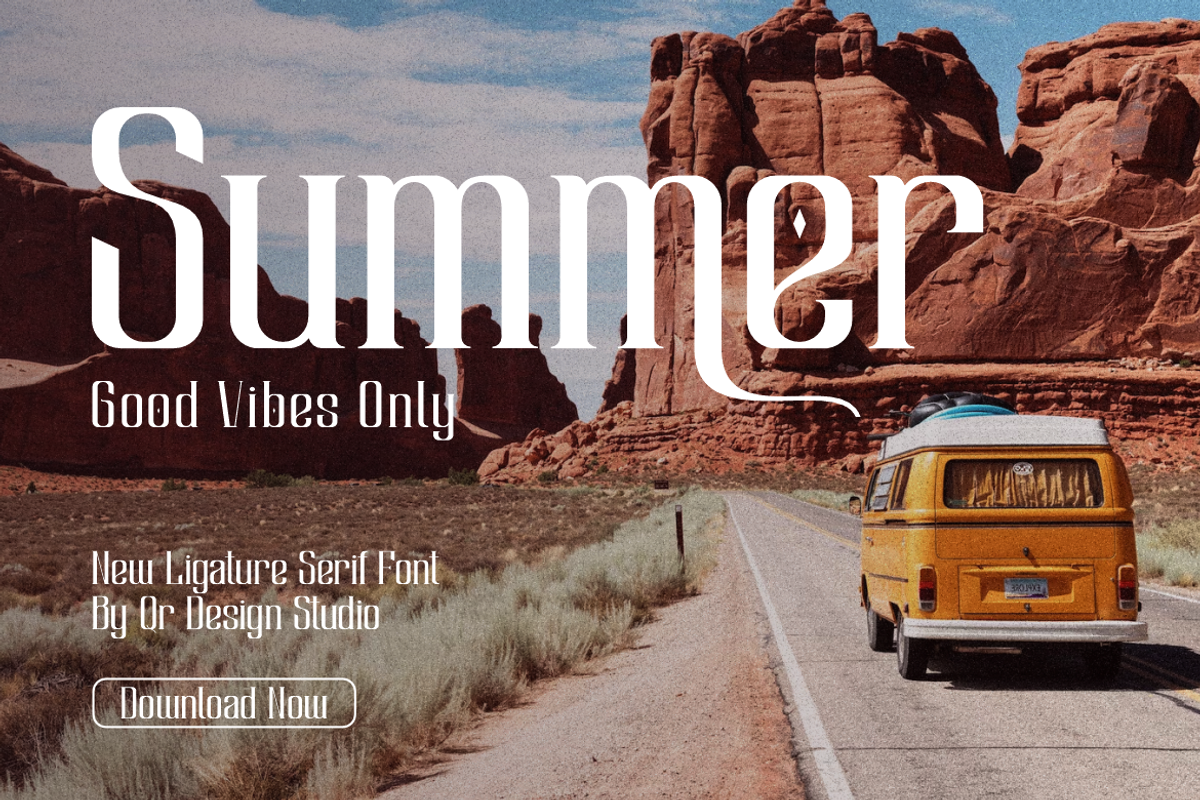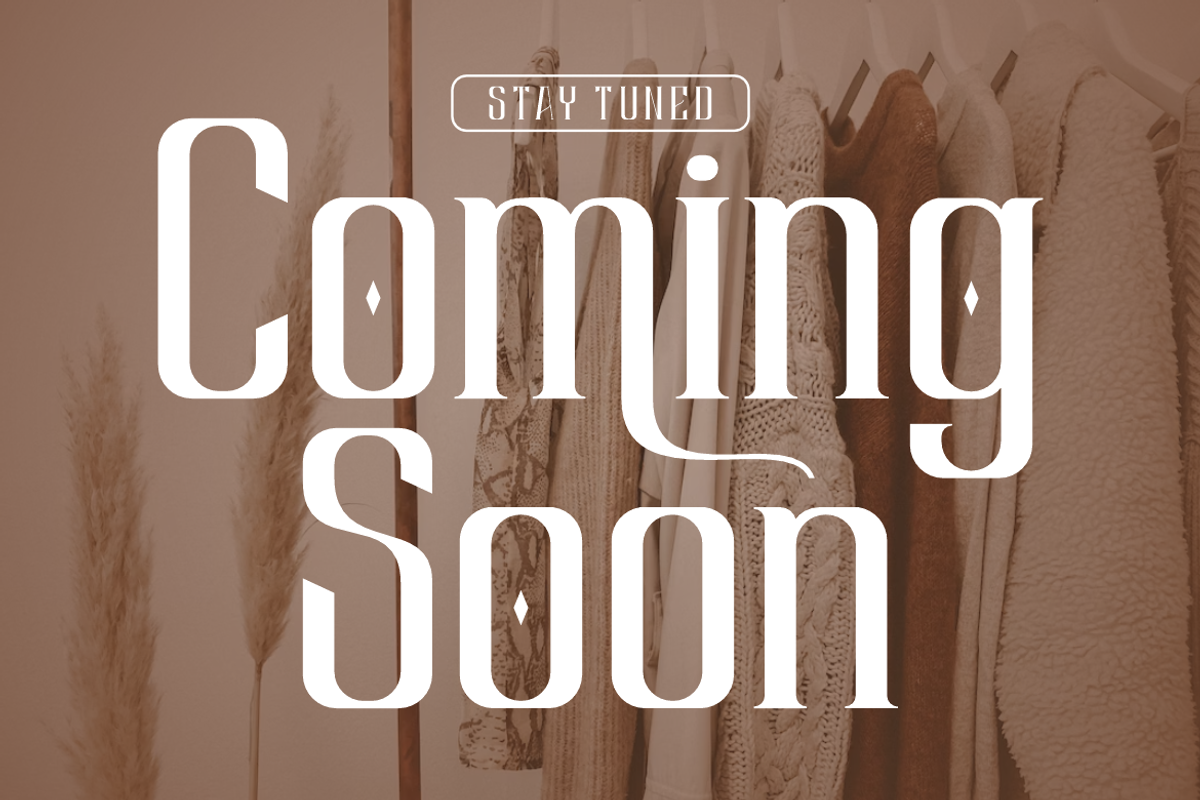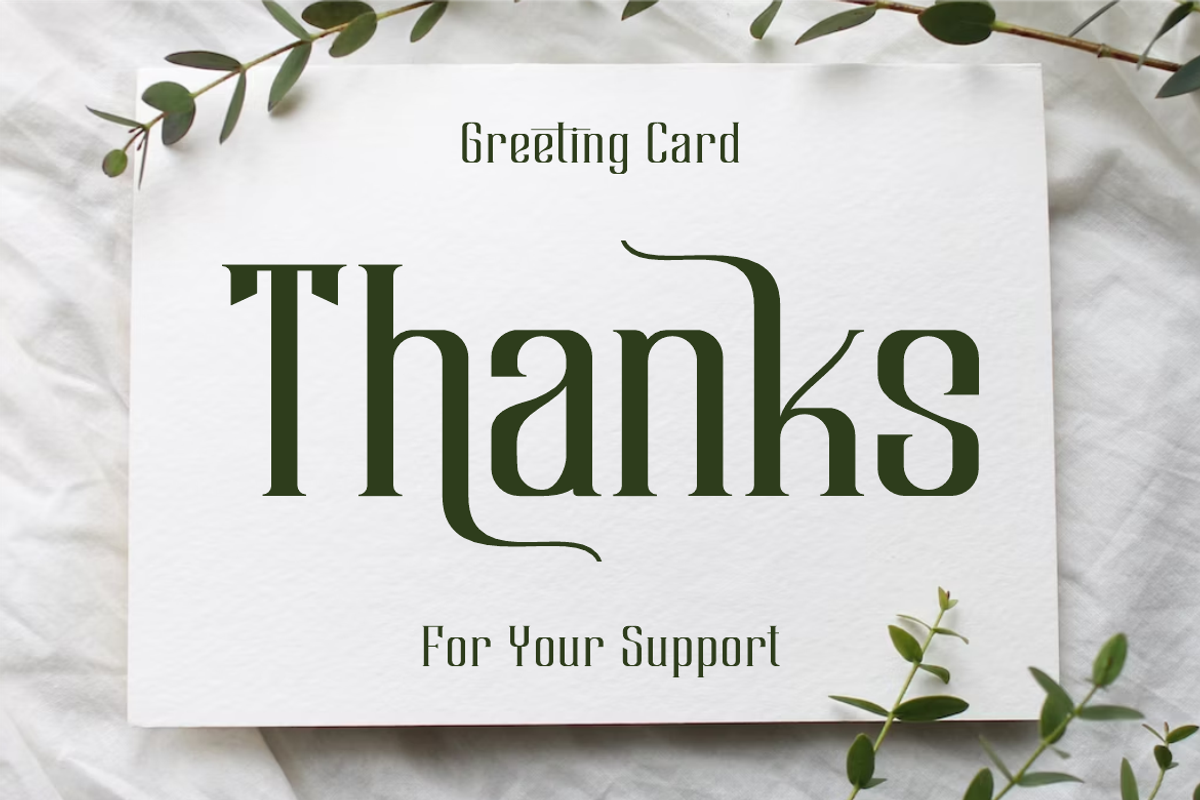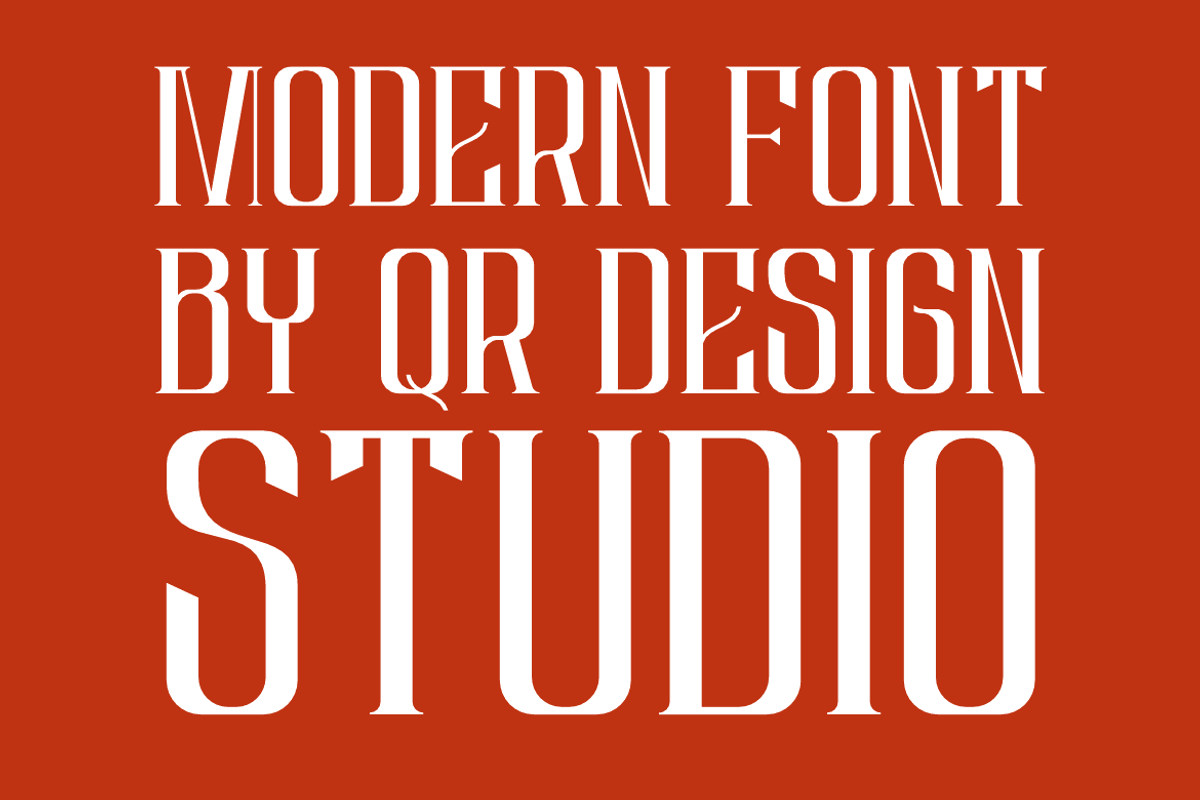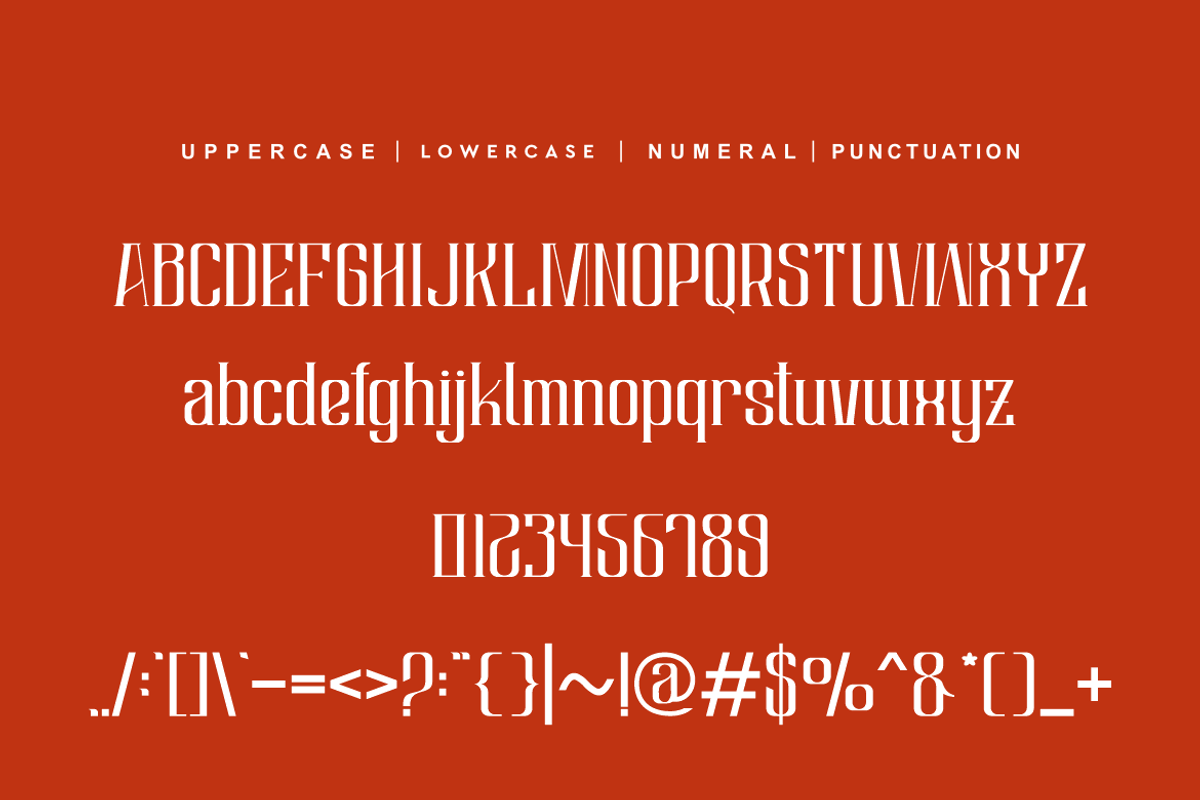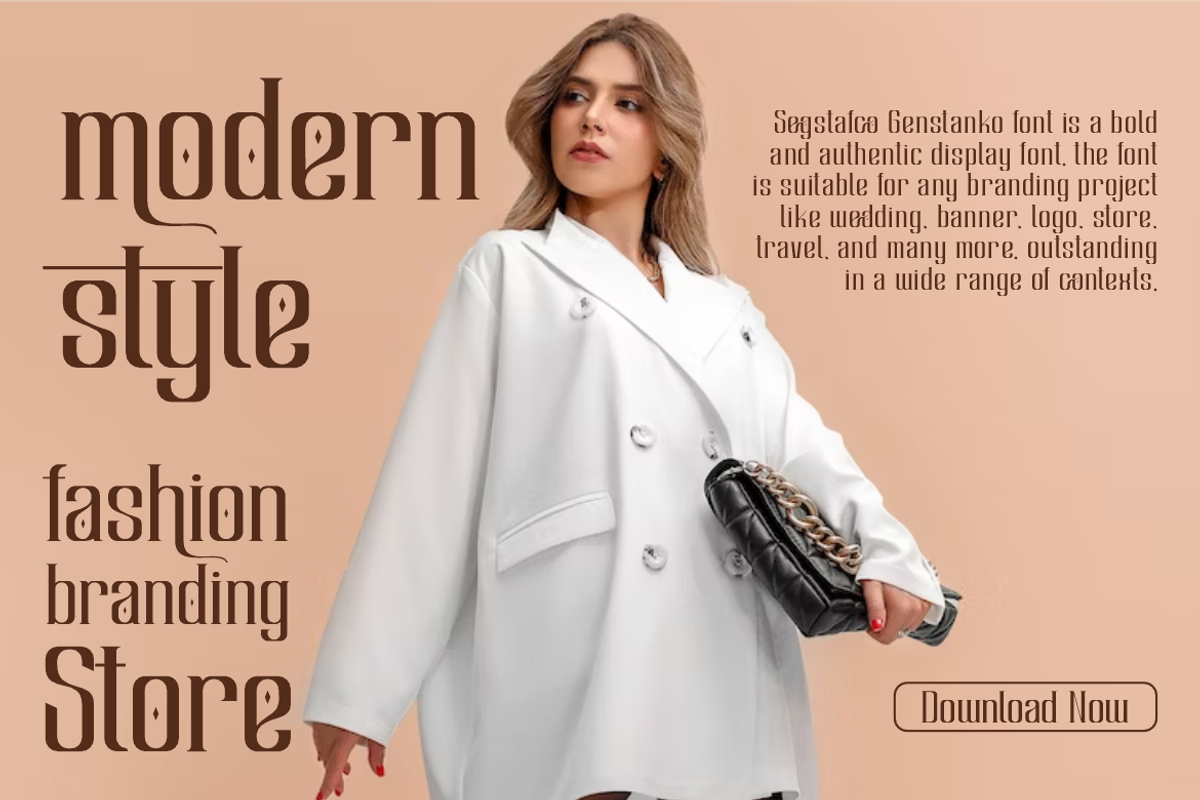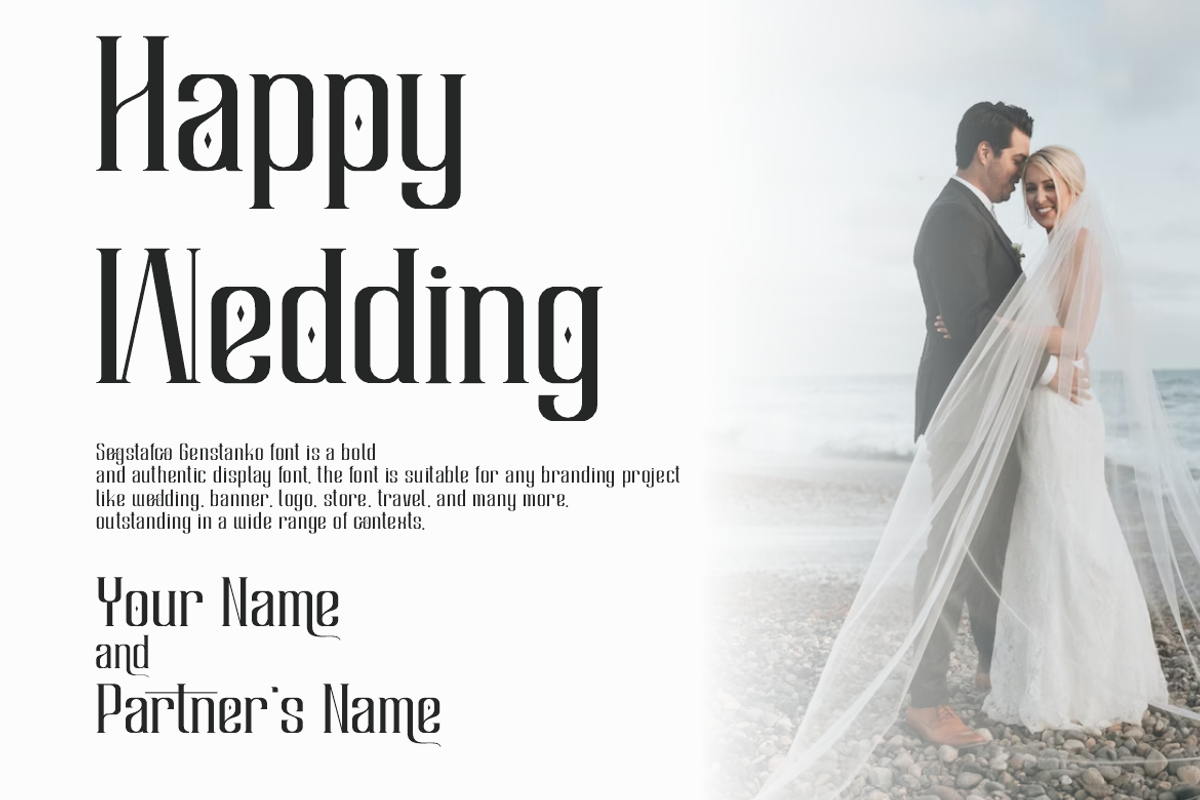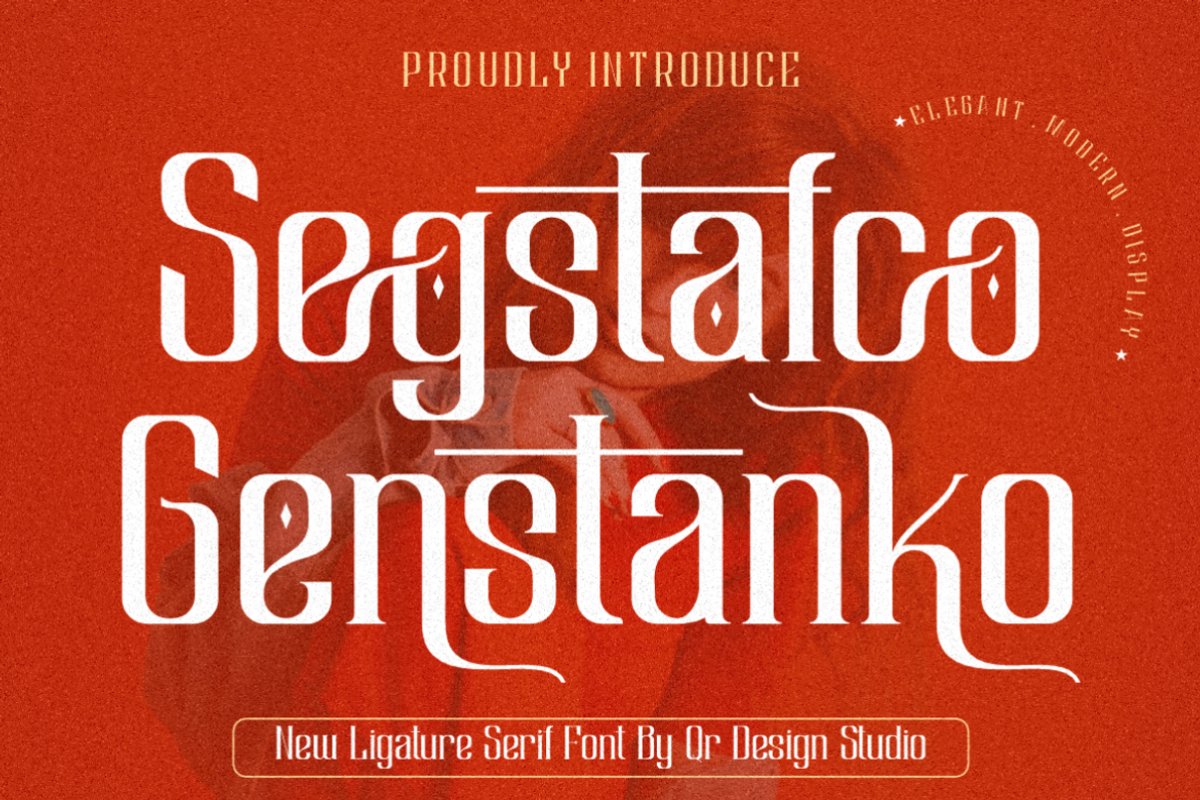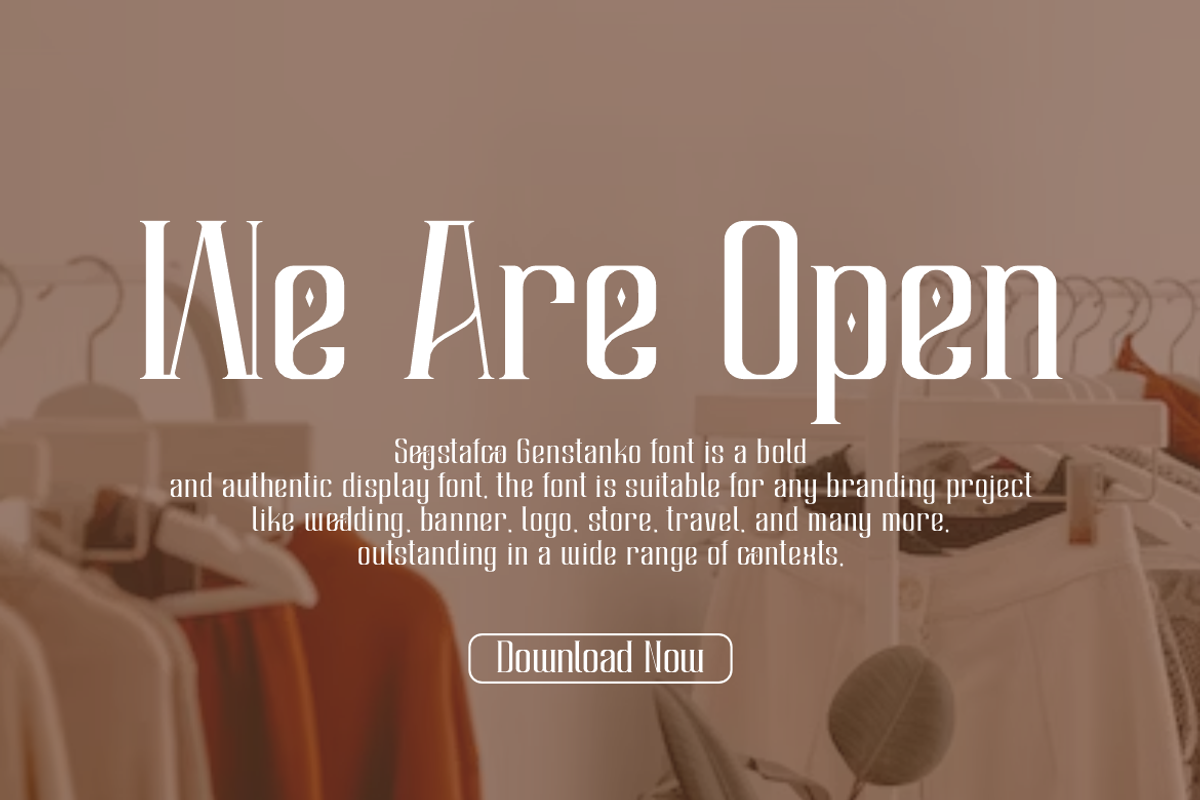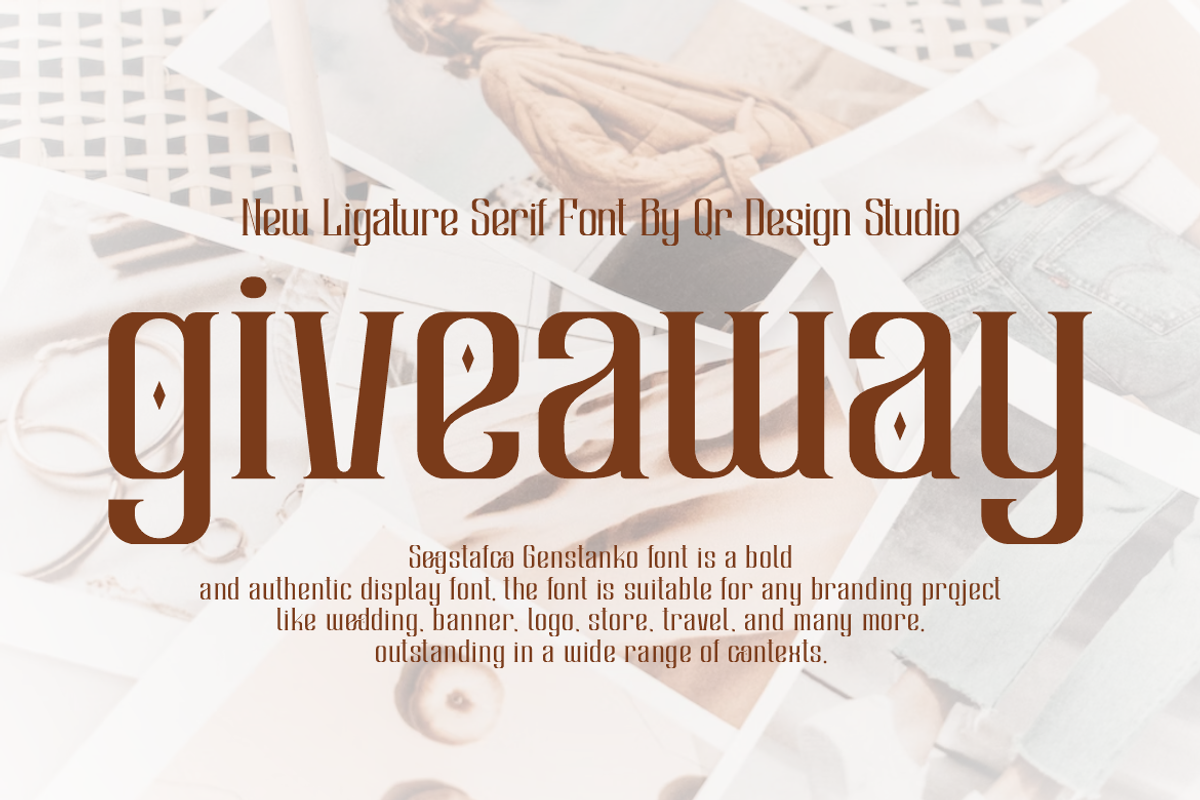
Segstafco Genstanko
Segstafco Genstanko Font is a bold and authentic display font. The font is suitable for any branding project like logo, wedding, greeting card, fashion, and many more. Outstanding in a wide range of contexts.